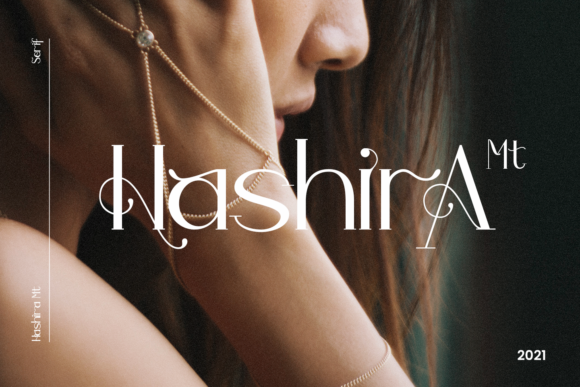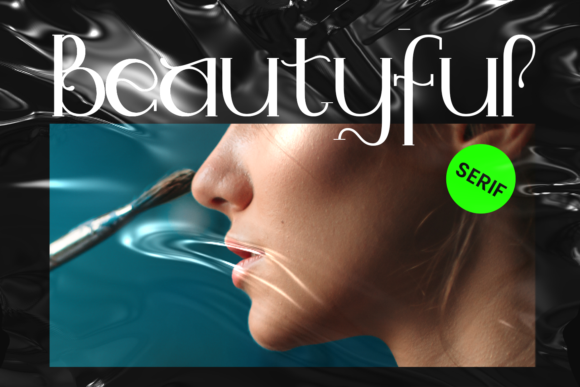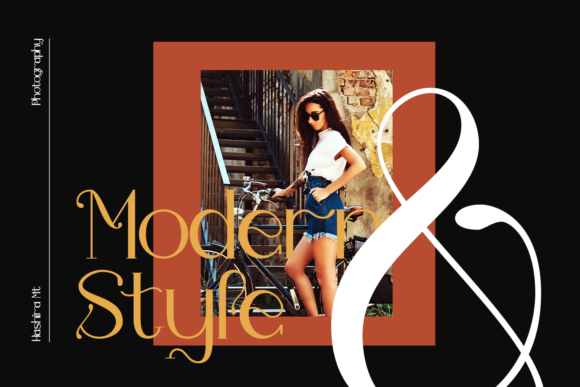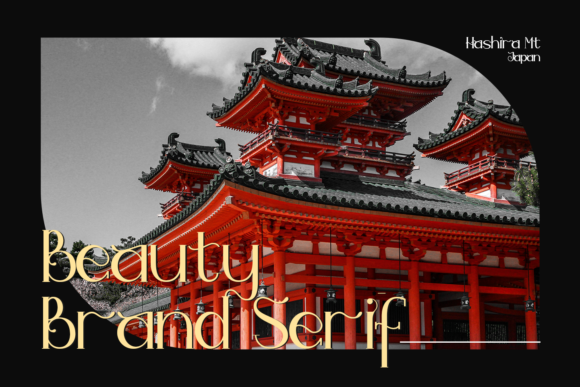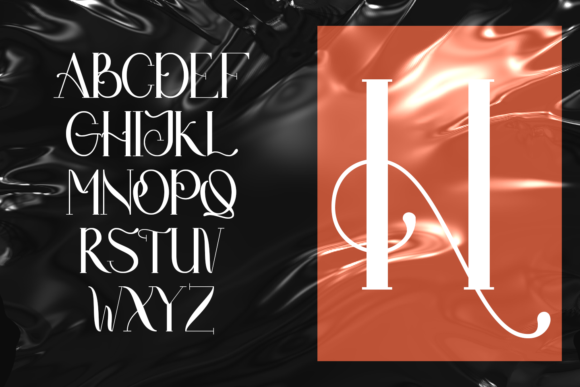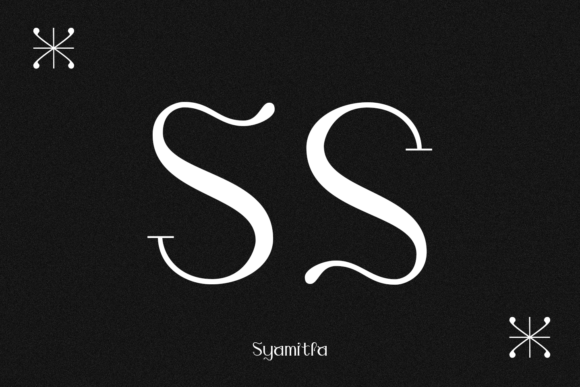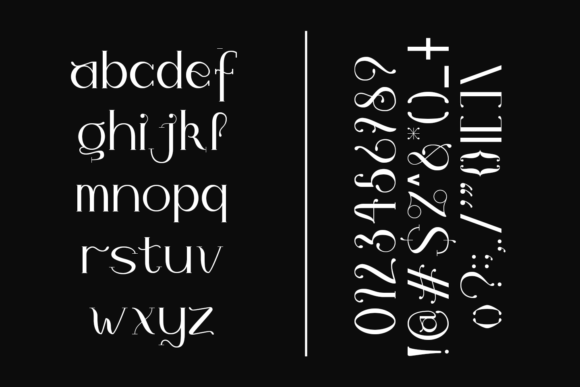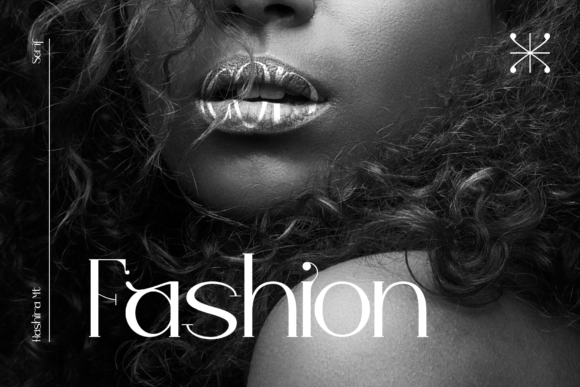
Hashira Mt
About Hashira Mt Font
Hashira Mt is a classic and modern serif font. It is defined by smooth curves and is perfect for fashion branding or editorial designs. Use this font for your designs and explore its endless possibilities.